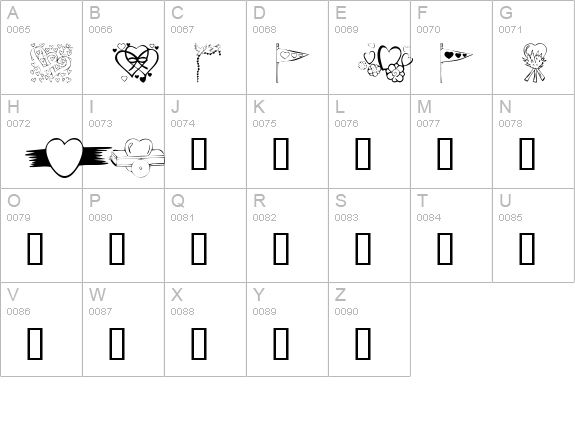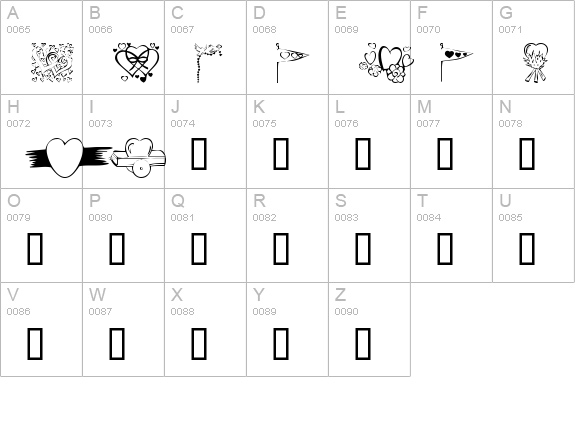
KR Valentines 2006 Nine Font Details
KR Valentines 2006 Nine font is a charming and playful typeface perfect for adding a touch of love to your designs. With its intricate yet whimsical design, this font exudes a romantic and festive vibe that is perfect for Valentine's Day projects or any other occasion that calls for a touch of sweetness. The delicate swirls and flourishes of this font evoke a sense of romance and celebration. Best of all, KR Valentines 2006 Nine font is freely available to download at FontsMarket.com. Whether you're creating greeting cards, invitations, posters, or social media graphics, this font will add a lovely and unique touch to your designs. Spread love and joy with the delightful KR Valentines 2006 Nine font today!